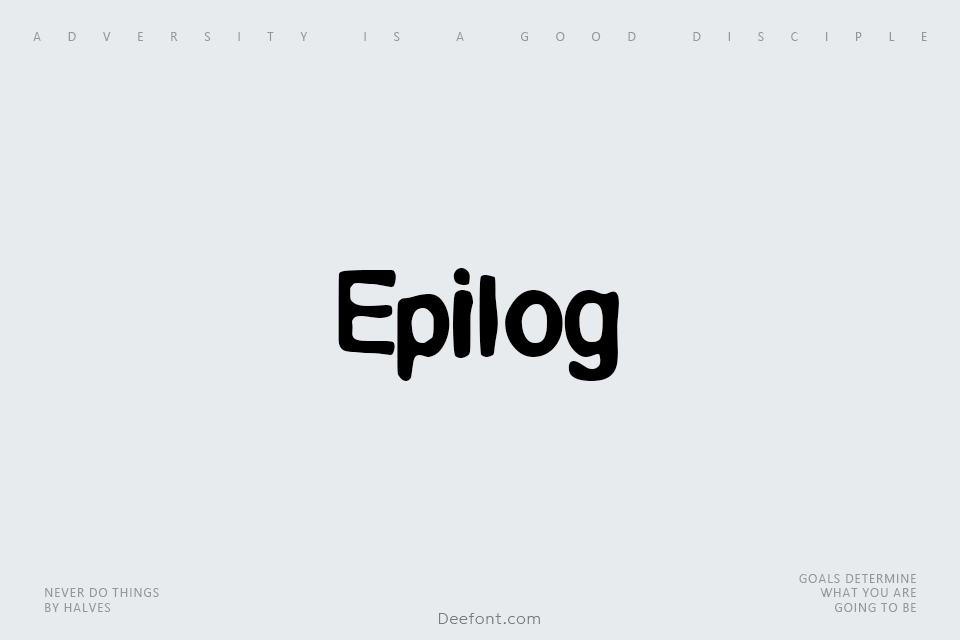
Epilog Font
Epilog is a distinctive display font characterized by its bold, rounded letterforms with a pleasant hand-drawn quality. The typeface features smooth and heavy letters, delivering a friendly yet firm appearance that combines playful design with substantial readability. Its unique aesthetic makes it perfect for headlines, decorative purposes, and creative projects that require a distinctive visual presence with approachable personality.